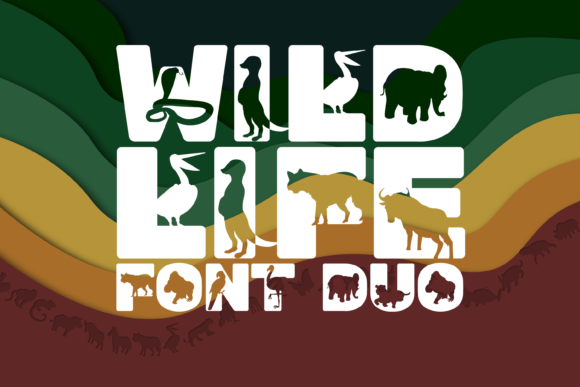
**Embark on a Typographic Adventure with the Enchanting Wild Life Duo Font**
Prepare to unleash your creativity with the captivating Wild Life Duo font, a harmonious blend of display and dingbat fonts. Immerse yourself in a realm of whimsical and adventurous designs, where imagination knows no bounds.
Let your words dance with the whimsy of our display font, perfect for adding a touch of playfulness to any project. From vibrant children's games to captivating cartoon creations, this font will transform your designs into enchanting tales.
And when you seek an extra dash of intrigue, our enchanting dingbats font steps onto the scene. Its playful symbols and captivating flourishes add an irresistible touch of mystery to your creations, inviting exploration and inspiring boundless stories.
**Embrace the Wild Side of Typography**
Whether you're designing for the digital realm or crafting physical masterpieces, the Wild Life Duo font will ignite your creations with a vibrant and captivating spirit. Embrace the adventurous vibe it embodies, and prepare for your designs to embark on a journey of enchantment and wonder.
Invoke the magic of the wild and let your creations roar with personality. The Wild Life Duo font is your passport to a world of typographic adventures, where imagination reigns supreme. Download now and unleash the untamed power of creativity within your designs.